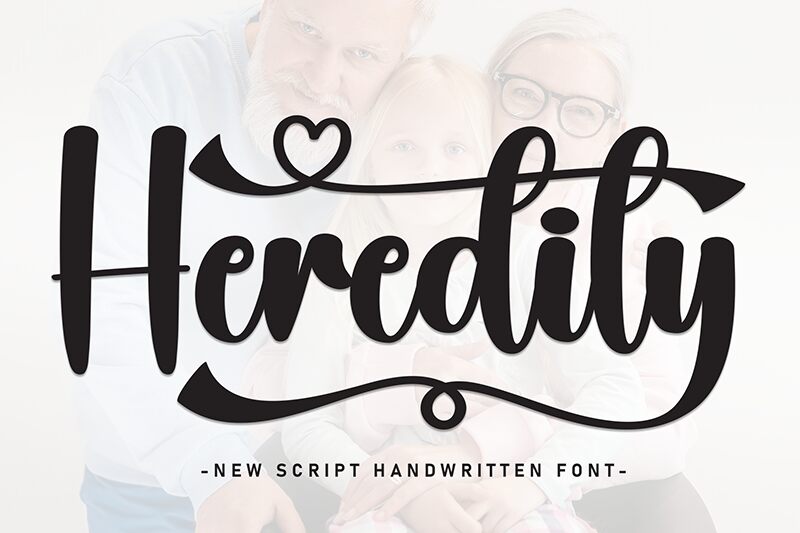
Heredity
Heredity font designed by Scratchones is a brush script font with a smooth flow and stylish presentation. Its flourished style displays decorative, elegant, and modern elements that grant an eye-catching appearance to any design it beautifies. It brings well-defined strokes and dynamic lines transformed into original characters.
The free calligraphy font can be part of artistic projects that include packaging designs, posters, logos, titles, quotes, apparel items, social media posts and more.